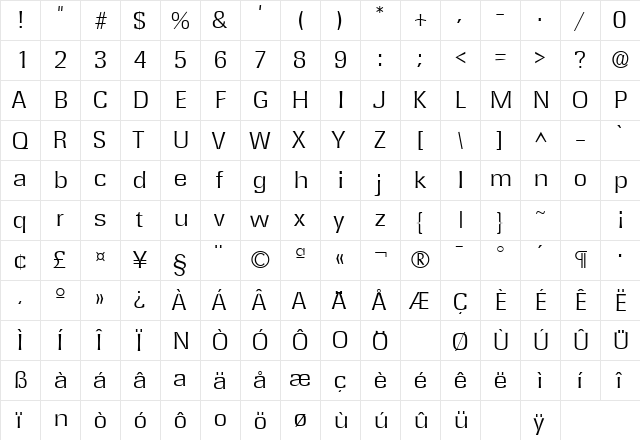
RochesterLH Regular
Design Context for RochesterLH Typeface
RochesterLH takes a measured approach to typography — its balanced proportions and neutral character make it a reliable workhorse for both digital and print work.